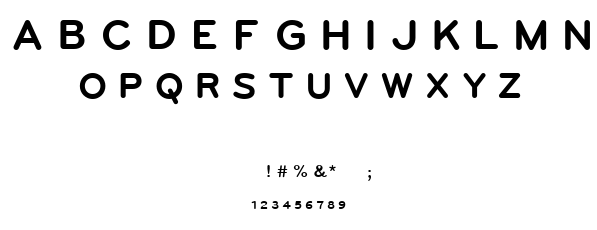
6 Layer | Free Typeface
Engreved / 3D / Rain / Shadow / Line / Pois
UGO is a free font design with different combinations.
Playing with layers and colors! Enjoy